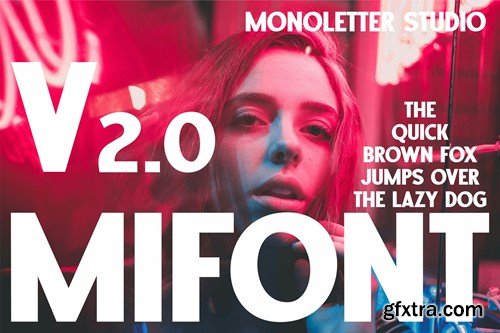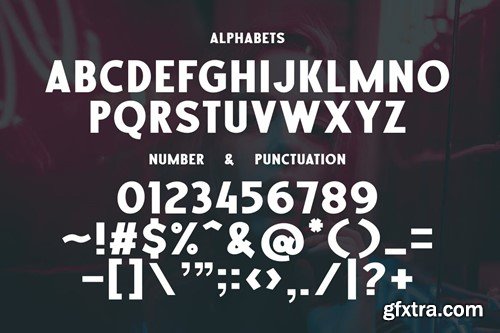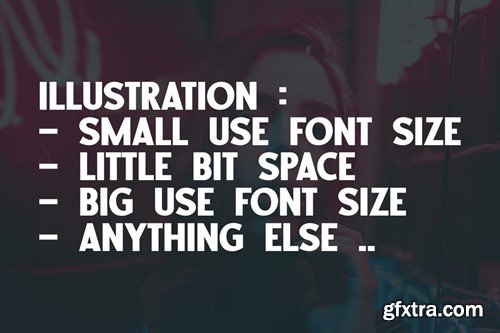
Mifont Font
Unleash your creativity with our unique and lively font, perfect for capturing the rhythm and pulse of musical events. Its dynamic design resonates with the energy of live concerts, making it an ideal choice for promotional materials or music event banners. Let this font set the tone and resonate with your audience, conveying the awesome vibe of your music-related projects effectively. The font is available in .OTF and .TTF formats.